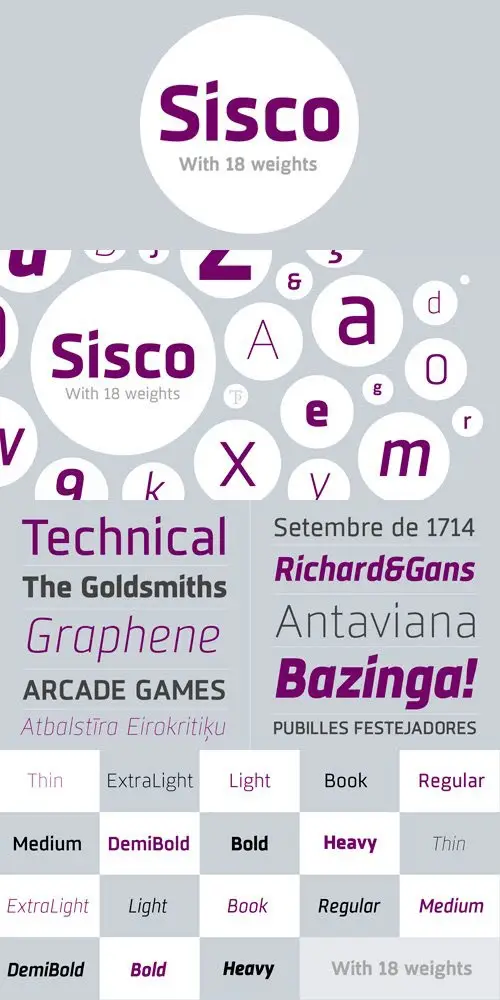
Sisco Font Family
Sisco is a complete font family of 18 weights intended for editorial use and brand identity. Open counterforms give it a touch of modernity and technological. Sisco is designed to be legible in small sizes in both paper and display devices. It contains a set of authentic Small Caps and various sets of numerals, fractions, ligatures, and an extensive map of suitable characters for most languages based on Latin characters. Sisco is a typeface that will bring the future to your graphic projects.